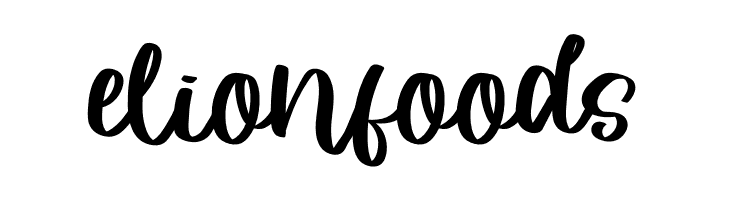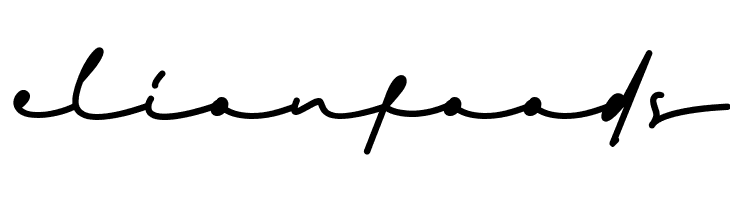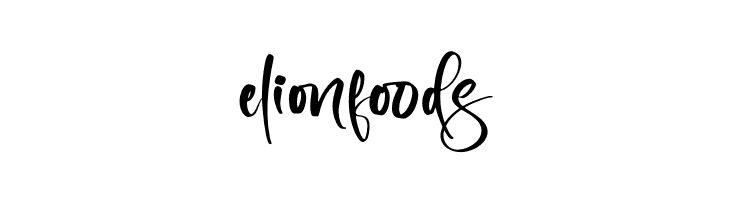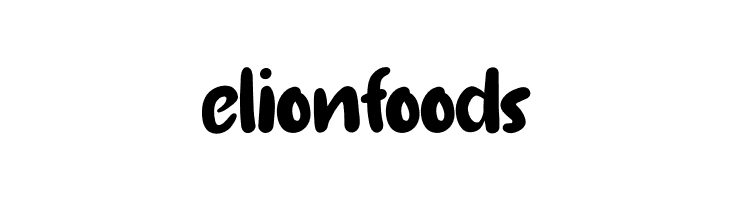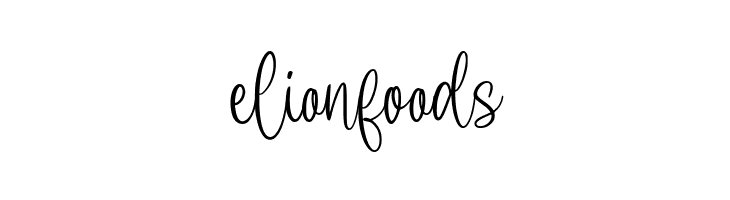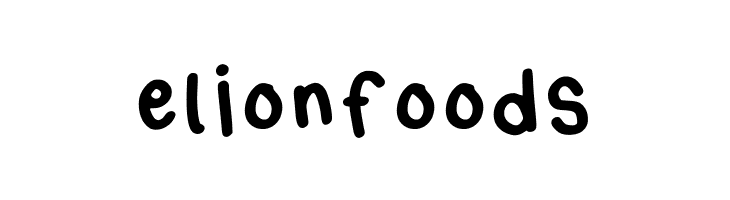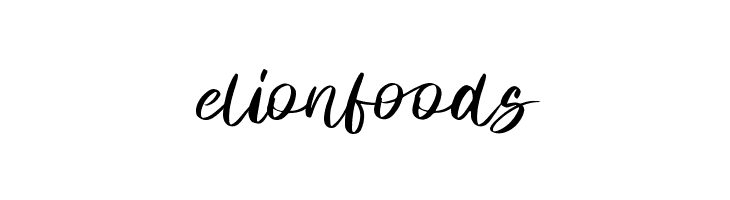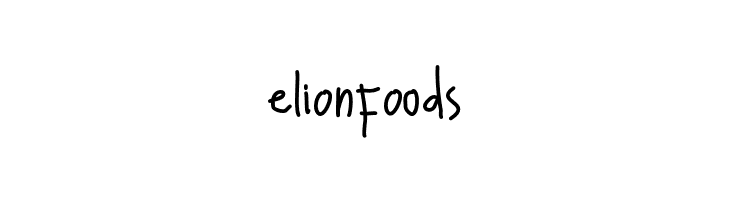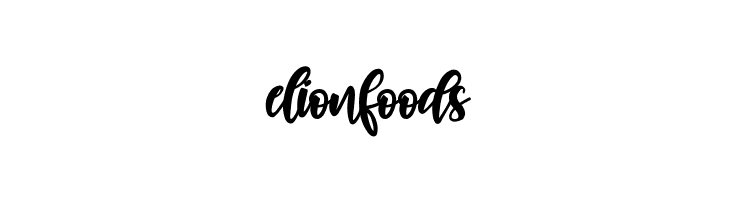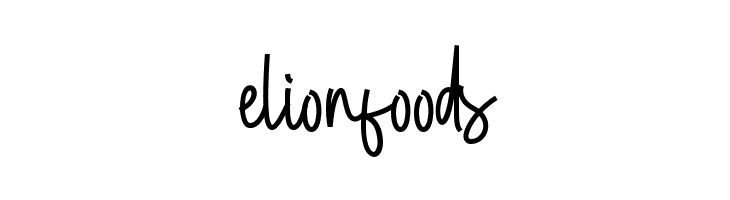
A playful, hand-drawn font with bold, rounded strokes and a whimsical style.
A fluid and elegant cursive script font with interconnected letters.
A bold, playful handwritten font with rounded, graffiti-like letterforms.
A bold, playful handwritten font with an artistic, irregular style.
A playful, rounded font with bold, smooth curves and a friendly appearance.
A fluid, elegant handwritten font with a consistent slant and smooth connections.
A playful, rounded handwritten font with a casual and friendly appearance.
A playful, hand-drawn font with rounded, bold characters and a casual vibe.
Casual handwritten script with tall, narrow, and playful letterforms.
A casual, handwritten font with a playful and informal style.
A playful, whimsical script font with flowing, interconnected letters.
Playful handwritten script font.
Casual handwritten font with a playful style.
A playful and casual handwritten font with whimsical curves and a friendly appearance.
A modern decorative font with tall, narrow characters.
A lively, brush-script font with a hand-lettered, dynamic style.
Elegant cursive script font with a handwritten style.
A bold and expressive script font with interconnected letters and a playful elegance.
A playful, handwritten font with a casual and informal style.
A dynamic and expressive handwritten font with fluid strokes and playful elegance.
Casual handwritten font with smooth curves.
A playful, handwritten font with a casual and dynamic style.
A playful, handwritten font with smooth, rounded strokes.
Playful, bold, rounded hand-drawn font.